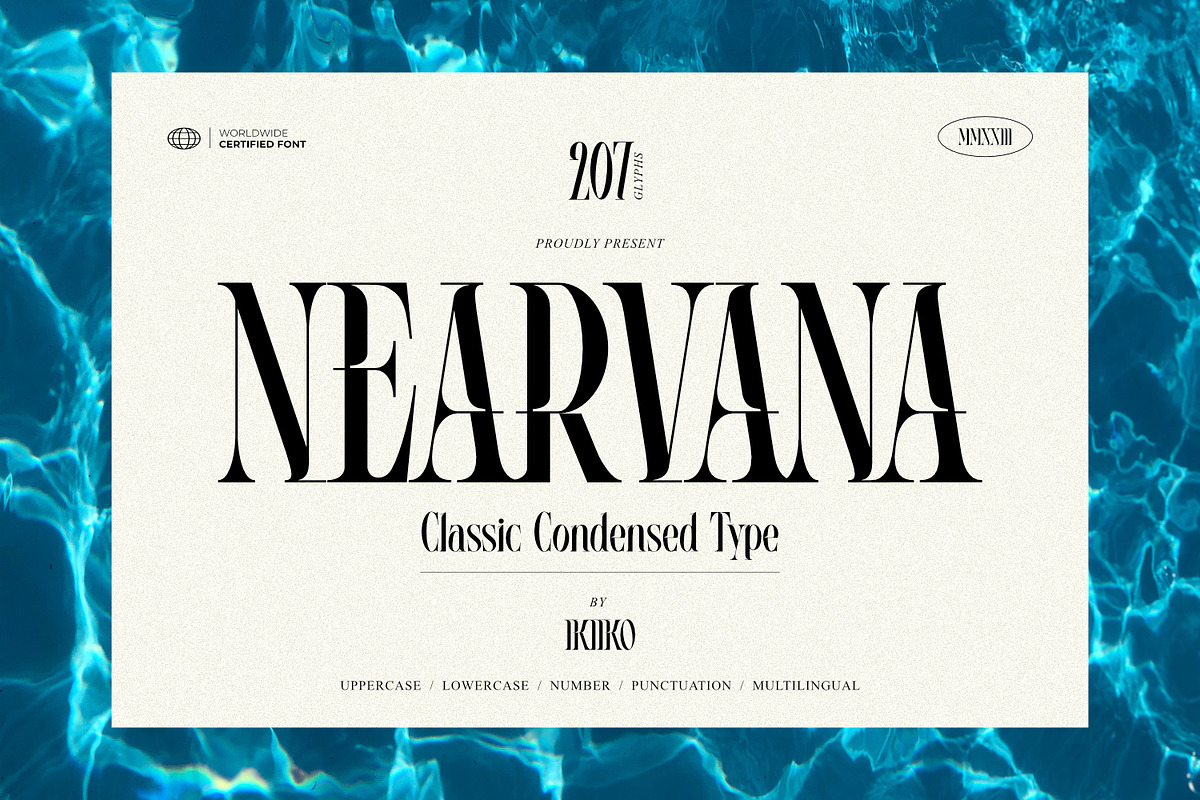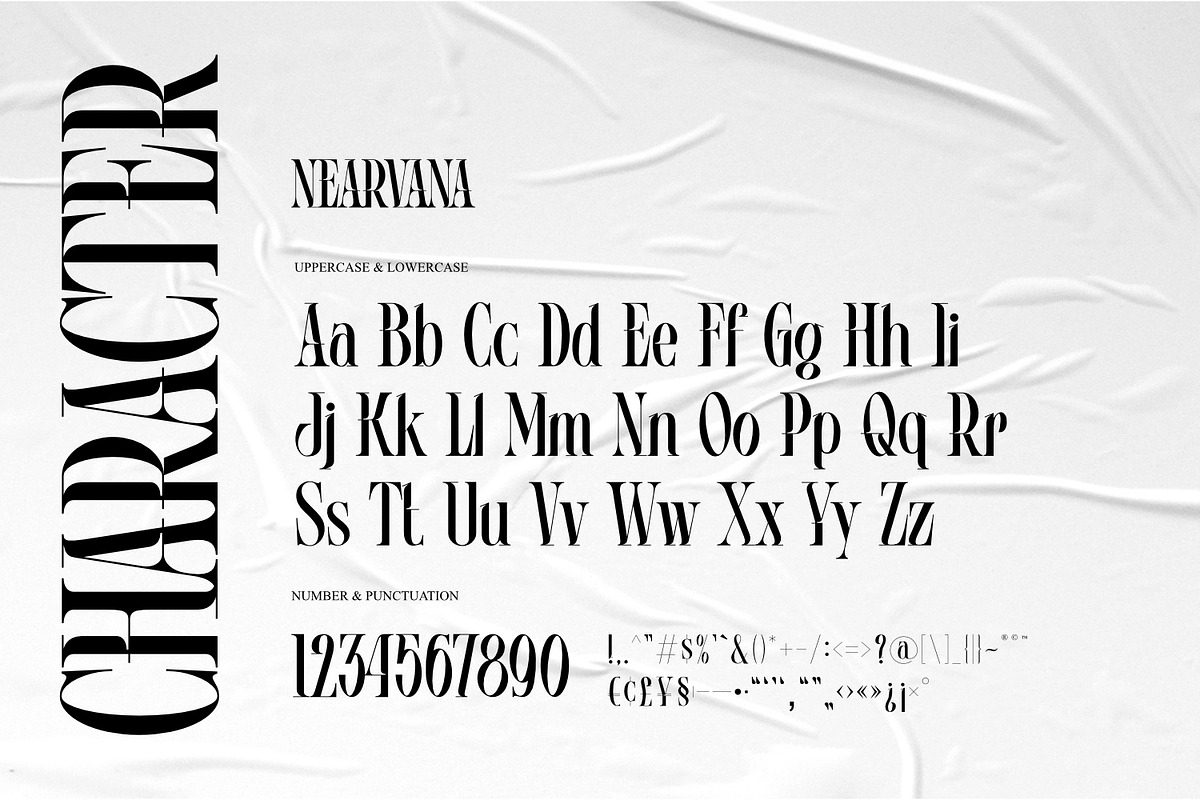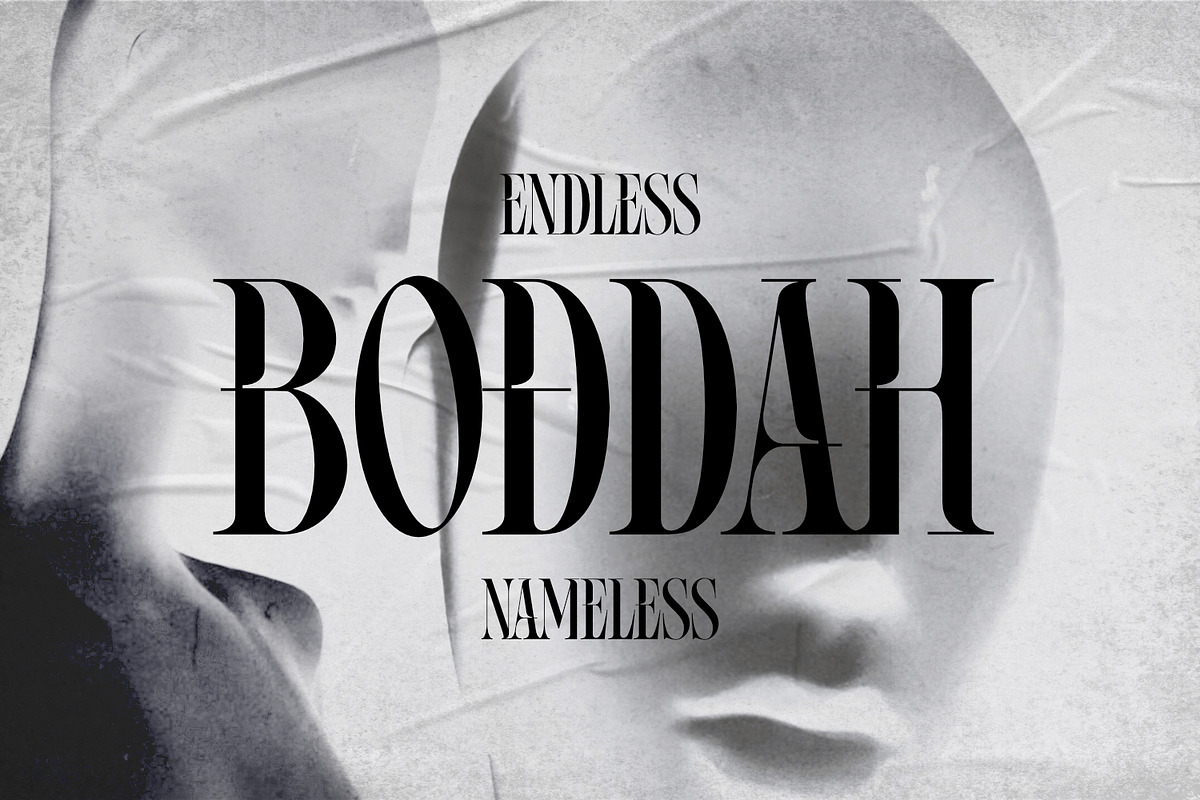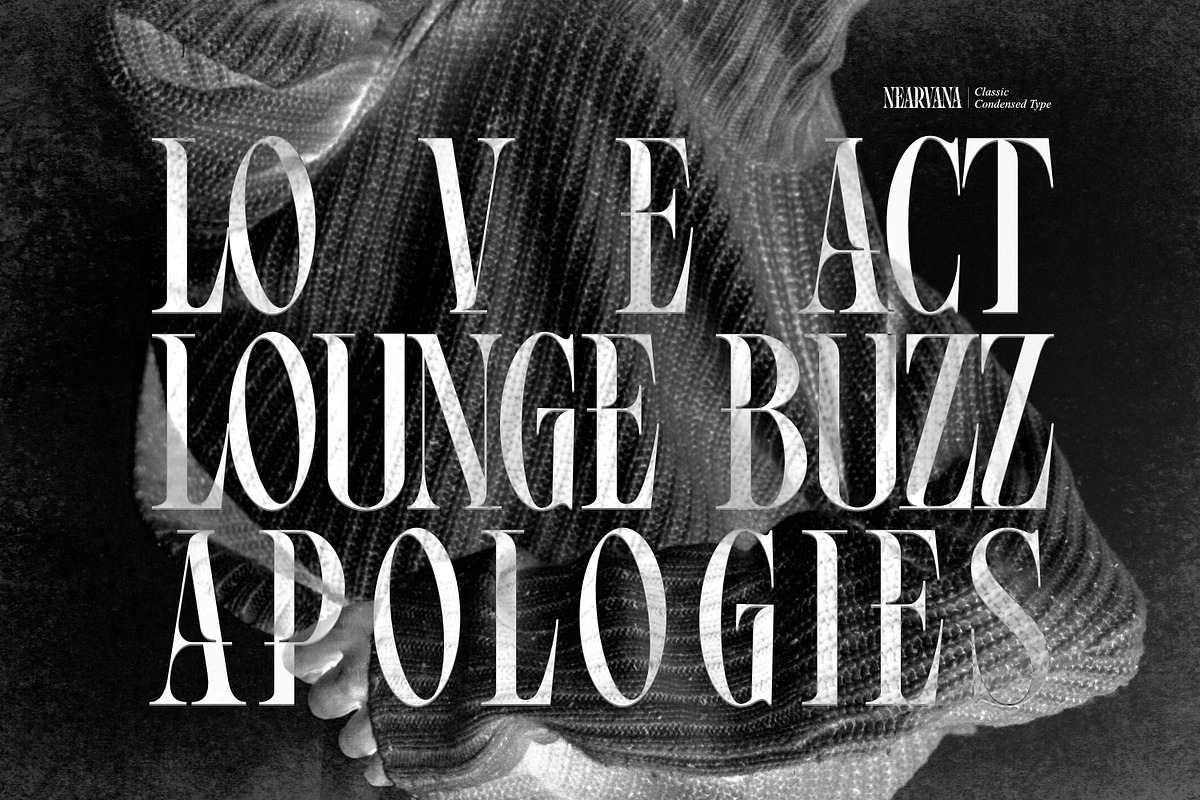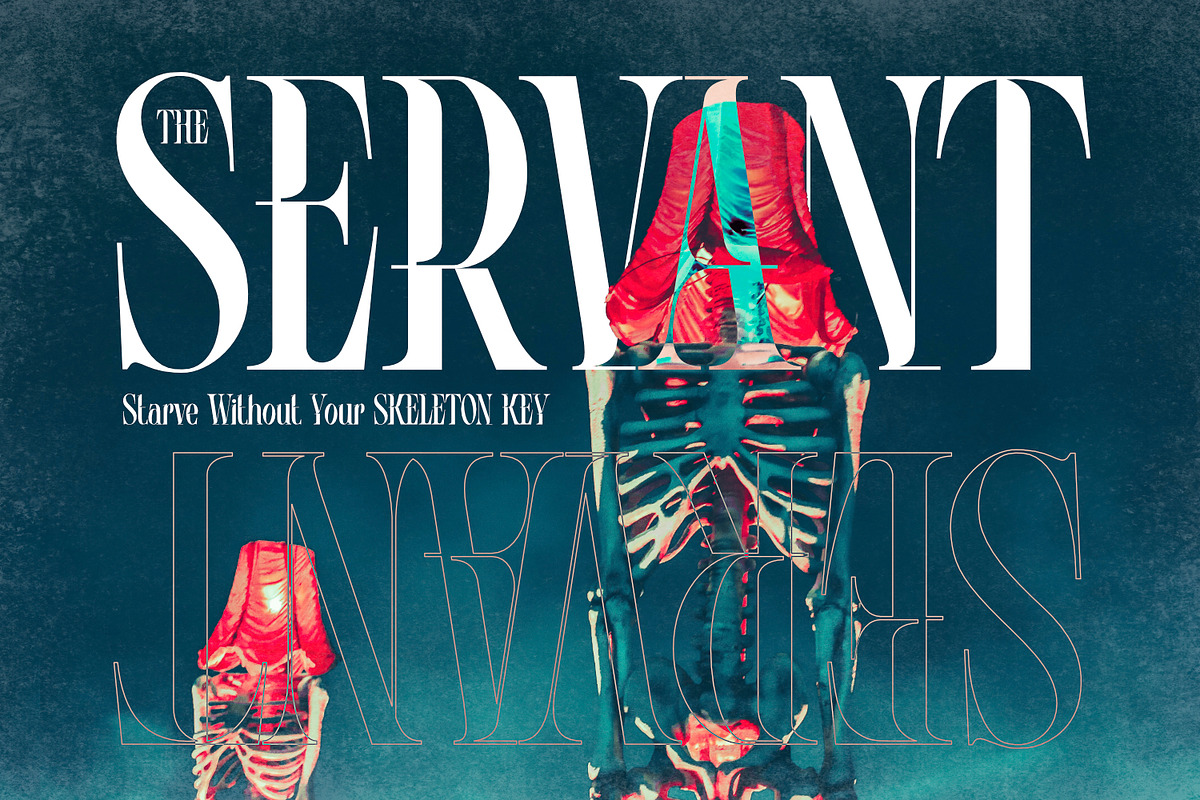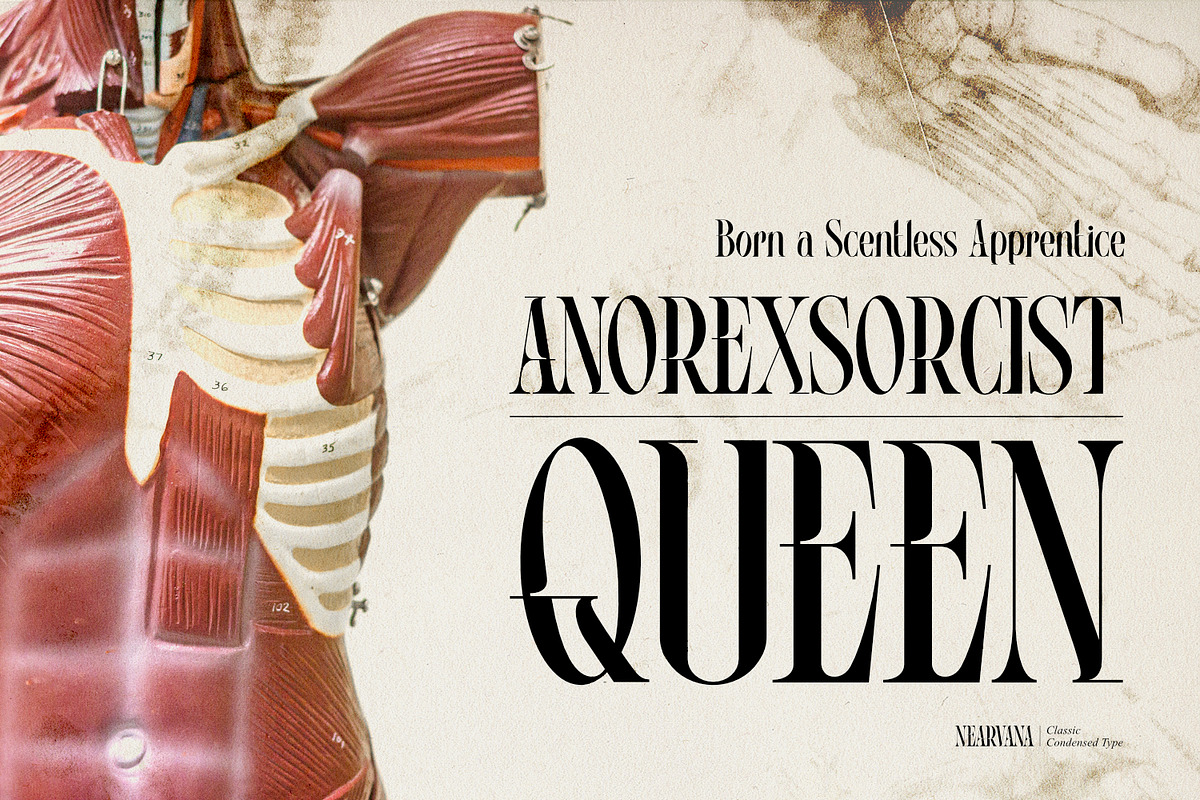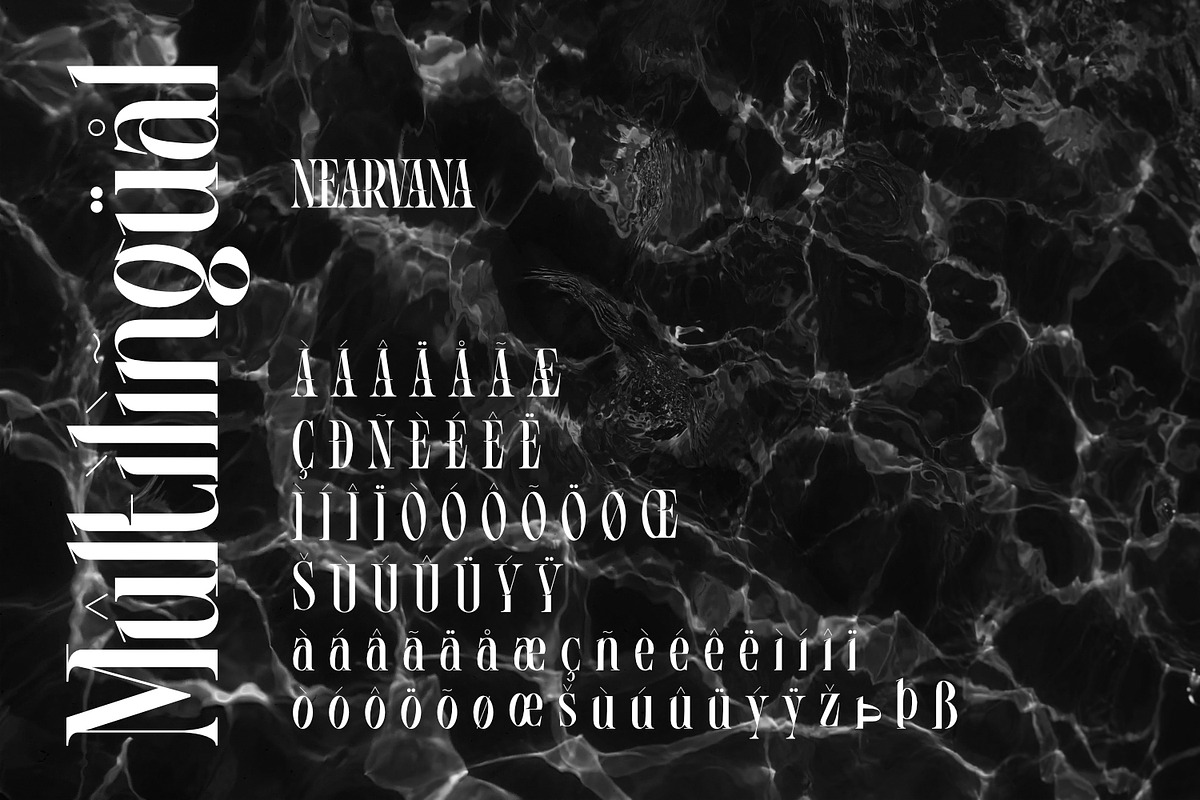
Nearvana - Classic Condensed Type
Proudly Present Nearvana - Classic Condensed Type, created by ikiiko.
This special face type inspired by Nirvana, a famous band name with an iconic logotype, served as a source of inspiration for the classic condensed serif typeface. With thin forms and sharp lines, this typeface conveys a timeless, masculine and elegant look. Nearvana was developed with a unique decorative style, simple but without losing the distinctive character that evokes nostalgia and authenticity.